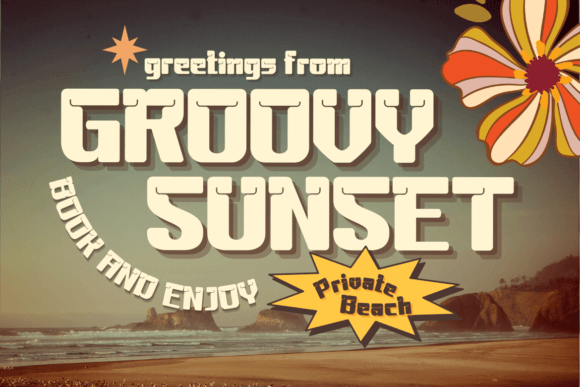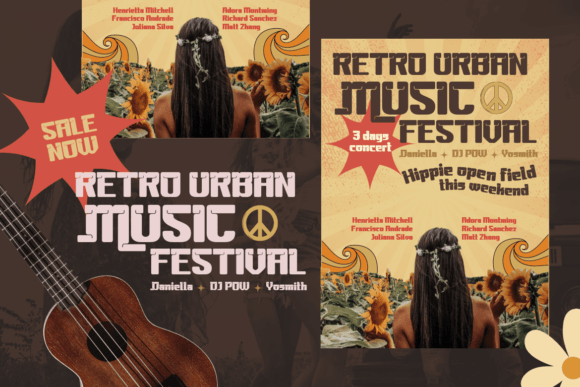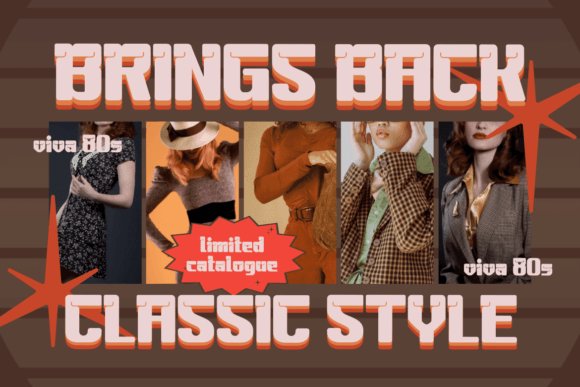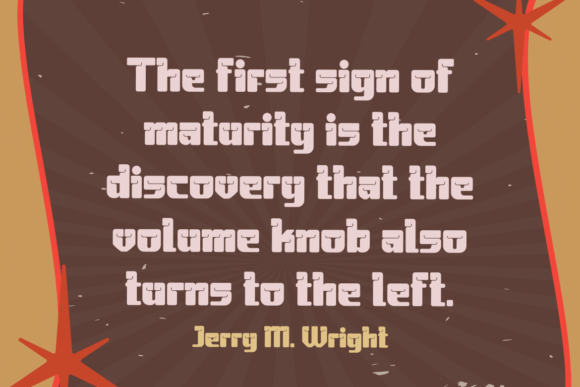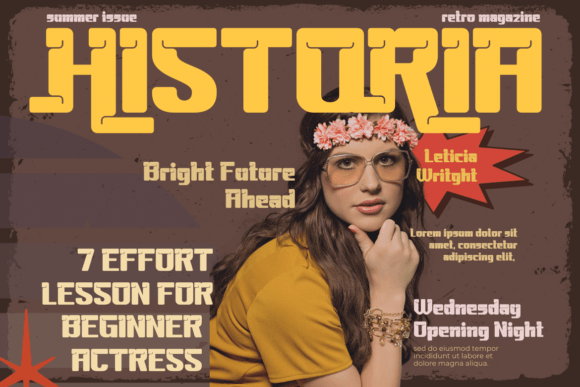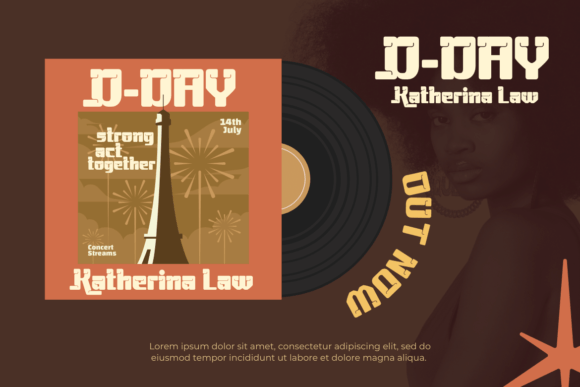
Introduction to Masteng Font
Turn your designs into something special with Masteng.
Take advantage of this awesome display font for a project thatโs superior and more striking than ever .
Key Features of Masteng Font
Why Choose Masteng Font?
Masteng Font offers exceptional quality and versatility, making it a valuable addition to your design toolkit. Whether you’re creating for personal projects or commercial use, Masteng Font delivers professional results.